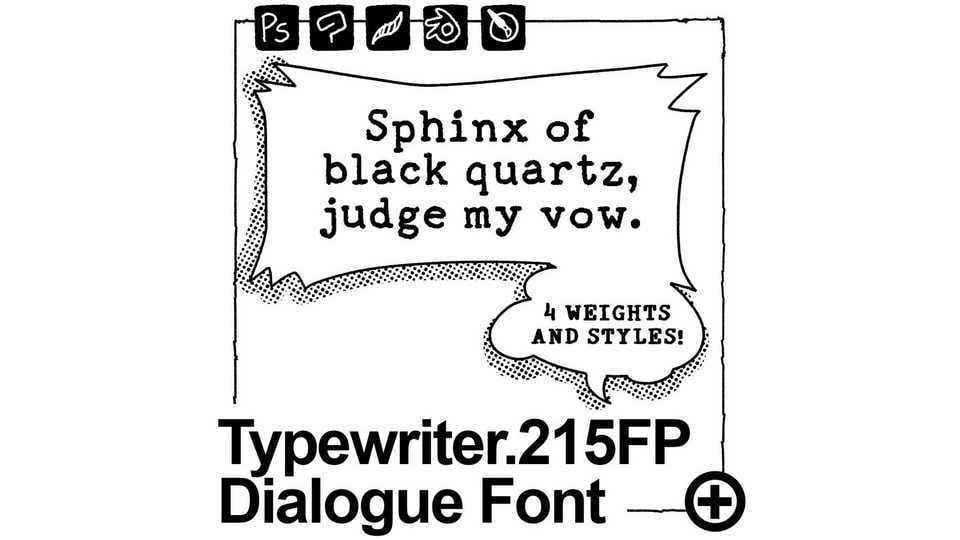
Typewriter 215FP Font › Fontesk
Download Typewriter 215FP font, a handwritten typewriter typeface, based loosely on the typesets of the 1959 Royal FP Elite, and the 1973 Smith Corona 215. It’s also a hand drawn font, and monospaced like a typewriter font would be.